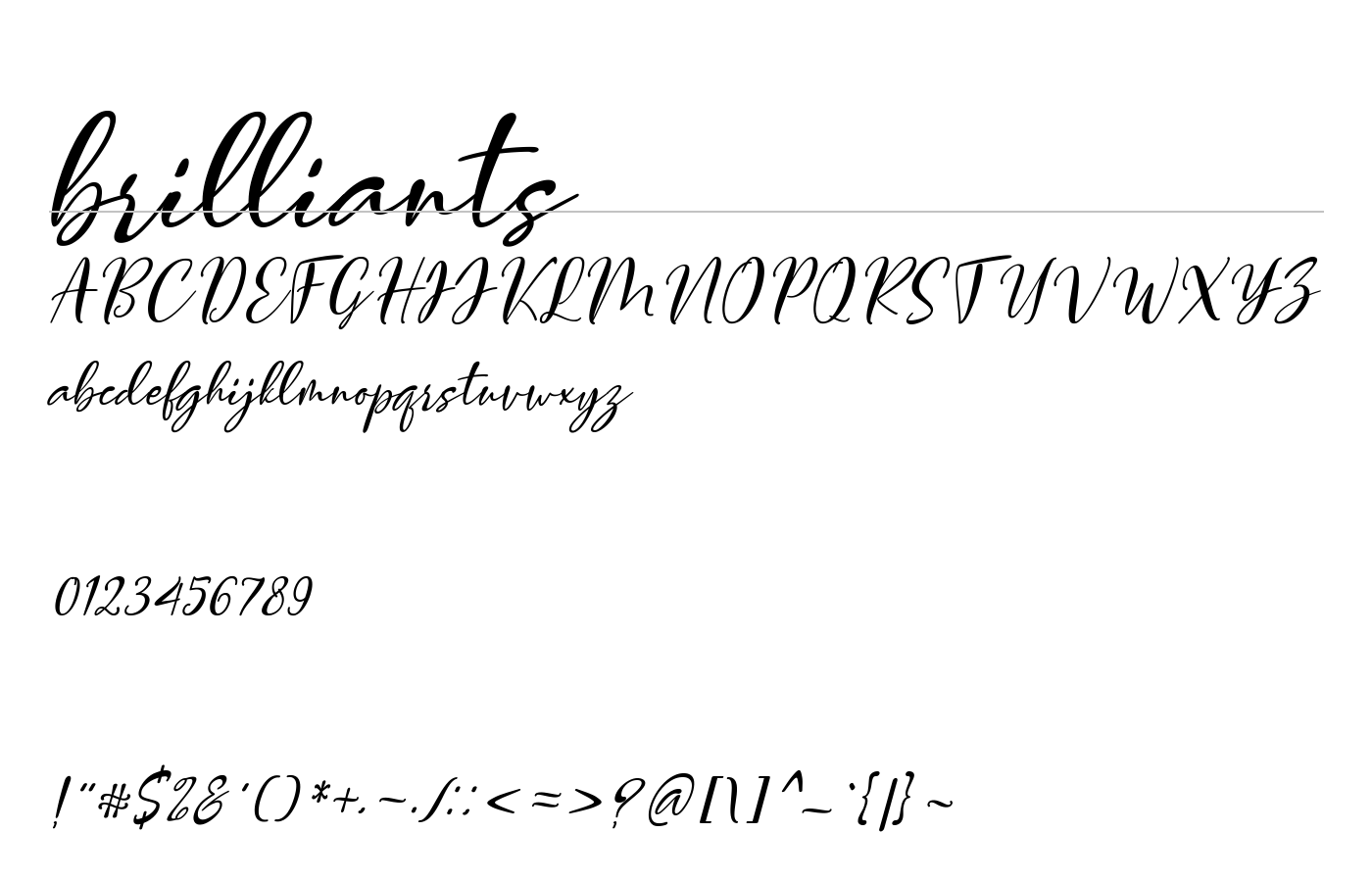
Brilliants is an elegant script font characterized by its smooth, flowing strokes and a delicate balance between thick and thin lines, giving it a refined yet expressive personality. Its graceful uppercase and lowercase letters create a stylish, handwritten feel that is perfect for luxury branding, invitations, or any design seeking a sophisticated and artistic touch. This font works beautifully in logos, packaging, and headlines where a personal, elegant statement is desired.
brilliants Font